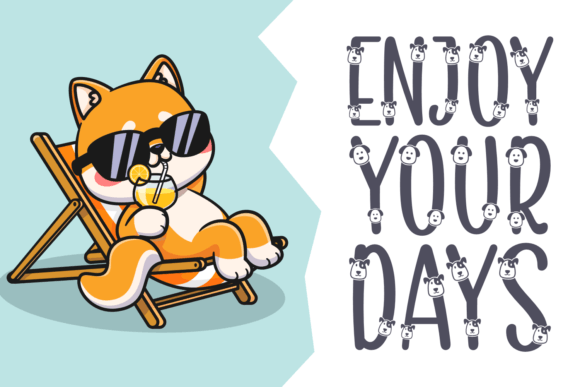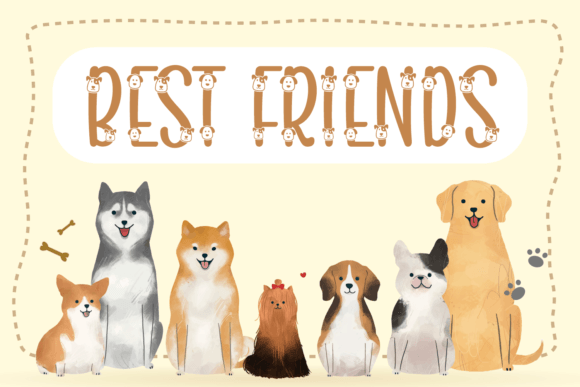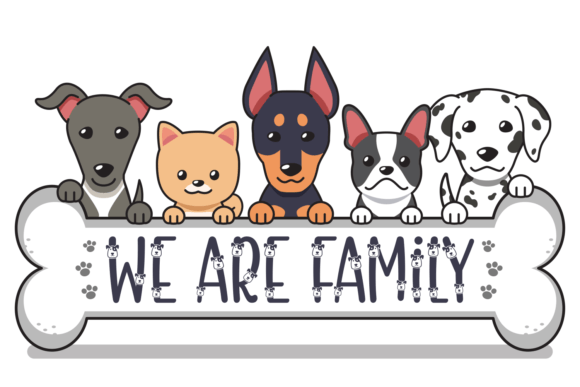
Introduction to Cutes Doggy Font
Who hasn’t been charmed by a puppy’s wagging tail or an adorable puppy face? As designers, we’re always on the lookout for that special something that brings a smile to our clients’ faces and makes their brand stand out. And that’s exactly what the Cutes Doggy Font does – it’s a delightful decorative font that’s sure to capture the hearts of dog lovers everywhere.
Whether you’re working on a creative project for a veterinary clinic, a dog grooming center, or a pet shop, the Cutes Doggy Font is an invaluable resource. Its cute puppy faces and playful design make it perfect for branding and advertising. Plus, its transparent background gives you the flexibility to use it on any background, making it a high-quality design resource that’s easy to work with.
- Unique, hand-drawn style with a transparent background, ideal for digital use.
Honest Review: Cutes Doggy Font
I recently came across the Cutes Doggy Font, and I must say, it’s a delightful addition to any design resource. As a designer, I’m always on the lookout for high-quality fonts that can elevate my creative project. The Cutes Doggy Font is a perfect choice for those who want to add a touch of playfulness and whimsy to their design.
- ✨ Unique and cutesy design style that’s perfect for children’s books, greeting cards, and other creative projects.
- ⚠️ Limited character set, which may not be suitable for longer texts.
Overall, I’m impressed with the Cutes Doggy Font. It’s a fun and creative resource that’s perfect for designers who want to add a touch of playfulness to their work. While it may have some limitations, it’s definitely worth considering for your next design project.
Cutes Doggy Font is perfect for designing children’s products, party invitations, and other creative projects that require a playful touch.